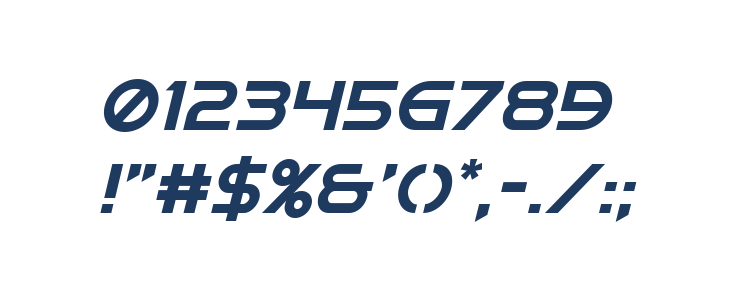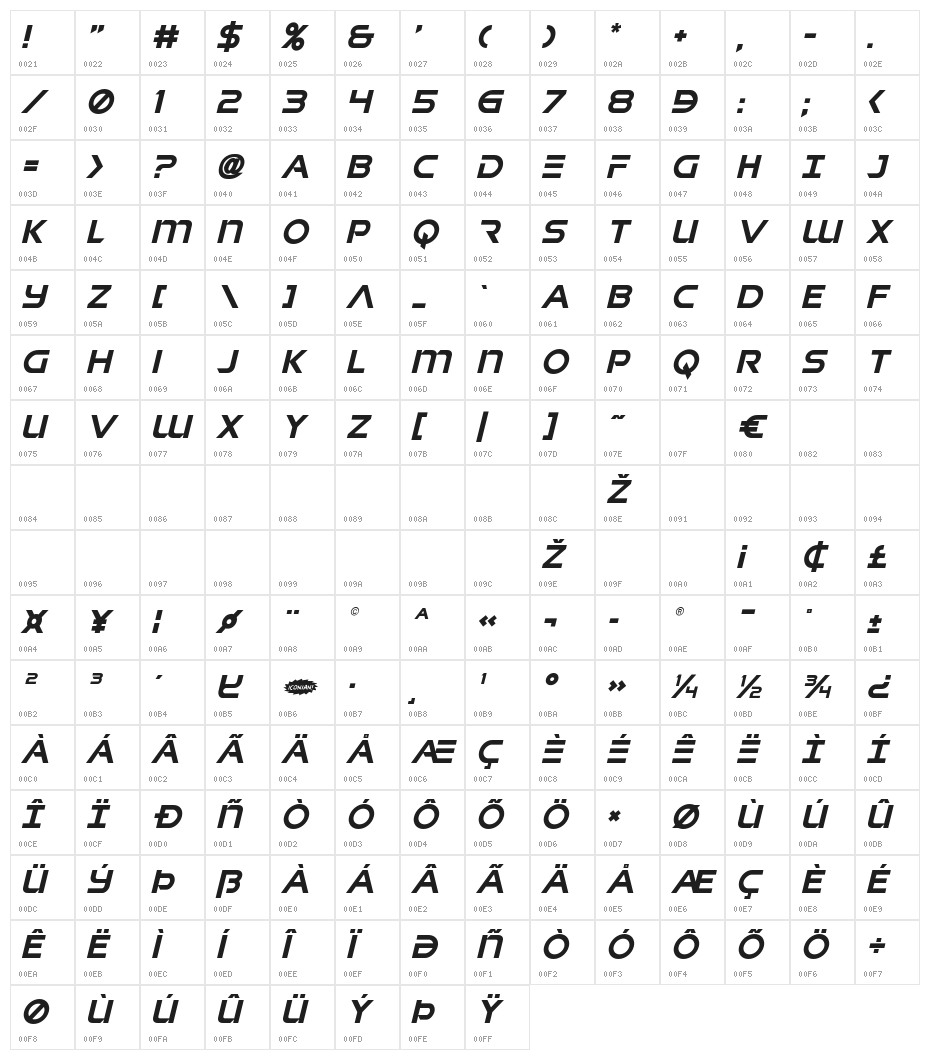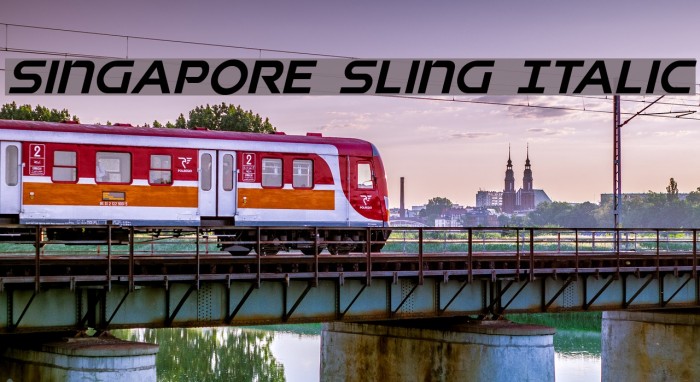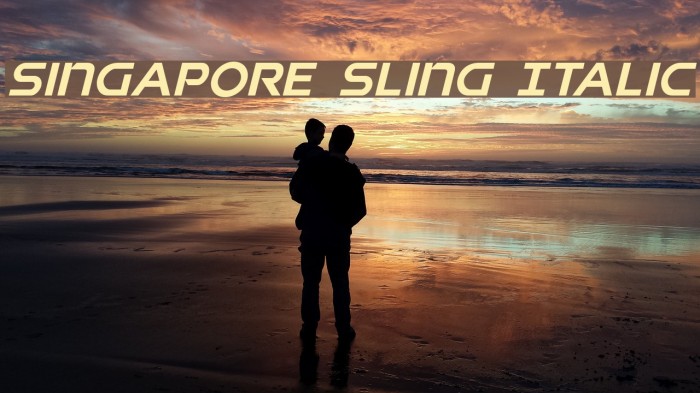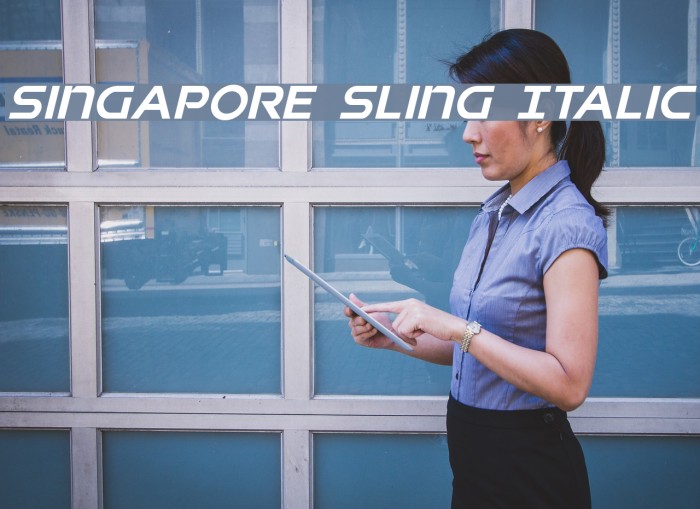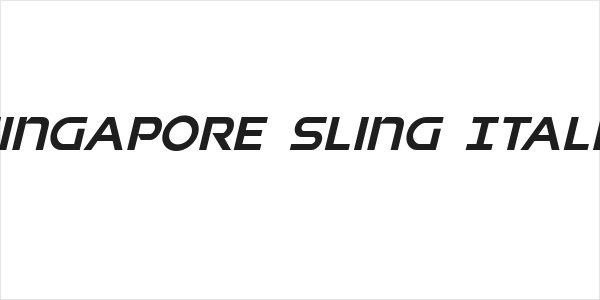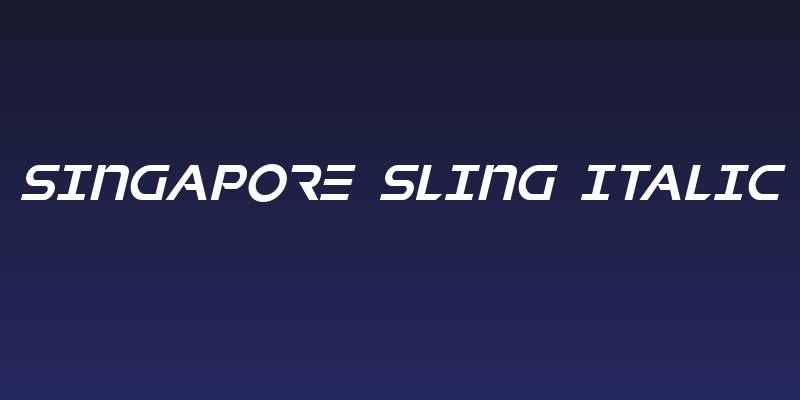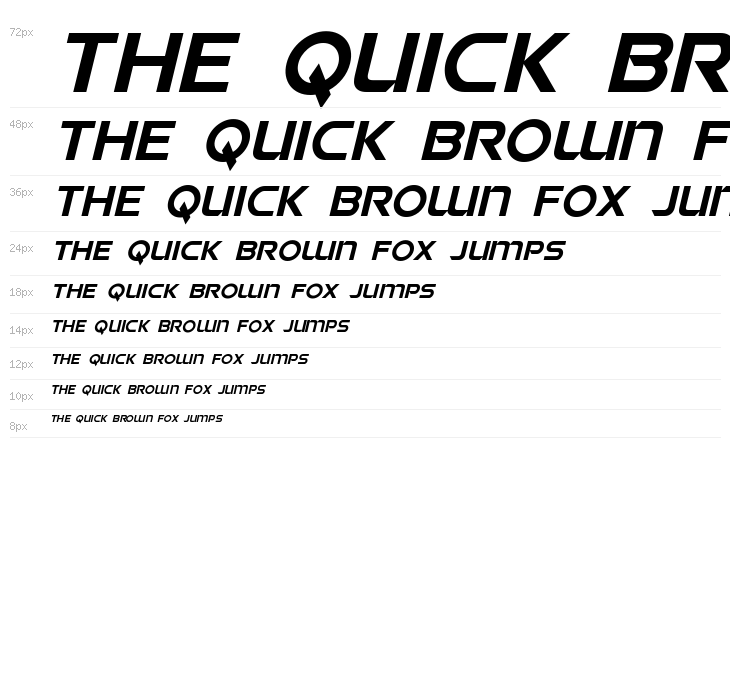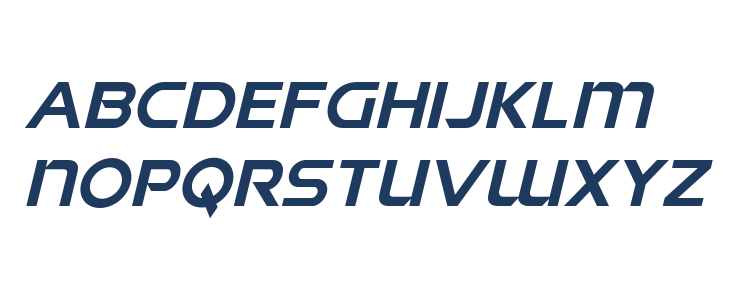
Singapore Sling Italic Font
Singapore Sling Italic Description
This font features a sleek, modern design with a distinct italic slant, giving it a dynamic and forward-moving appearance. The characters are crafted with a geometric precision, showcasing sharp angles and clean lines. The uppercase and lowercase letters maintain a consistent style, with a slight variation in the curvature of certain letters, adding a unique flair. The numerals are bold and easily readable, while the special characters are designed to complement the overall aesthetic. This font's contemporary style makes it suitable for a variety of applications.